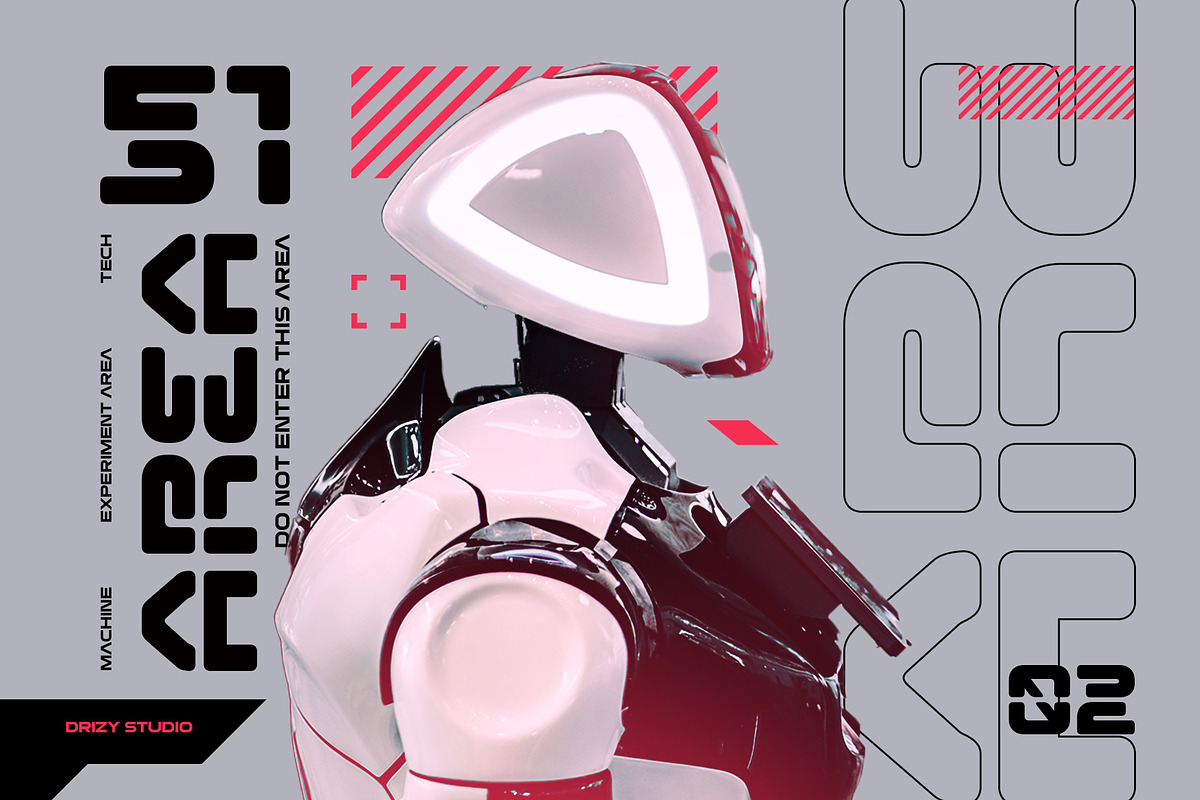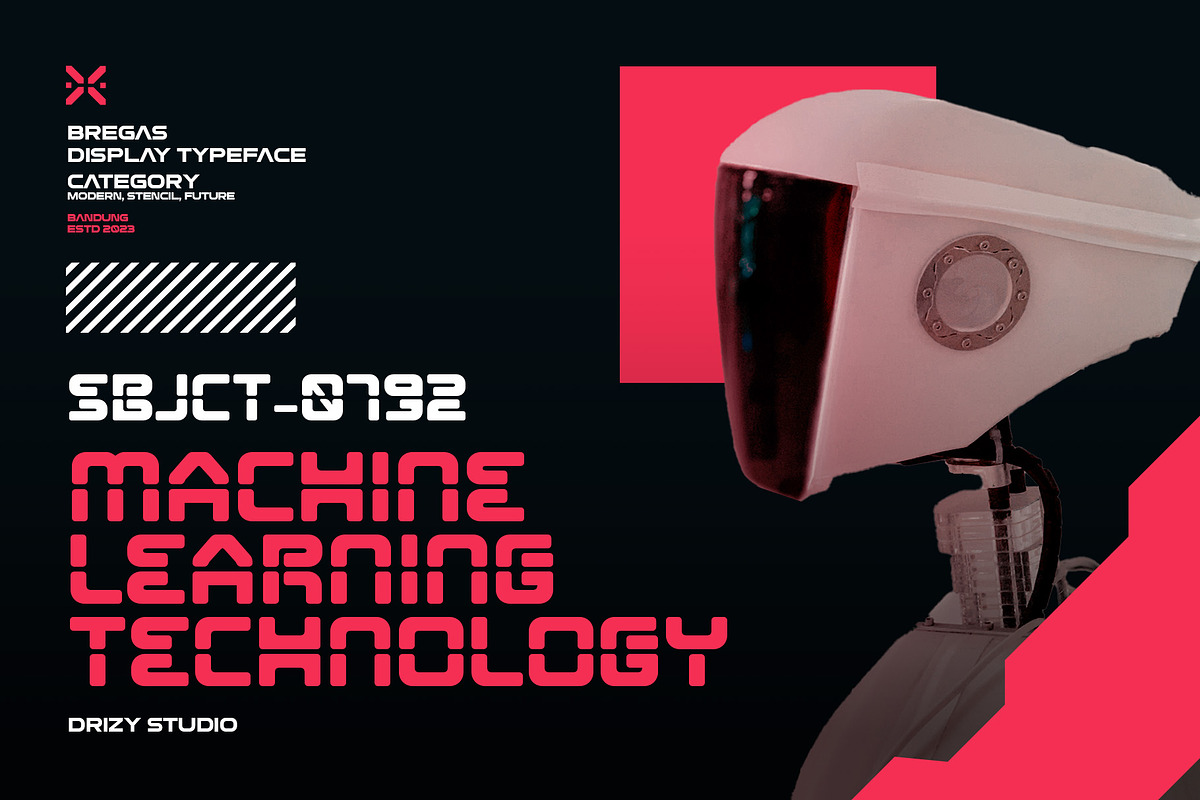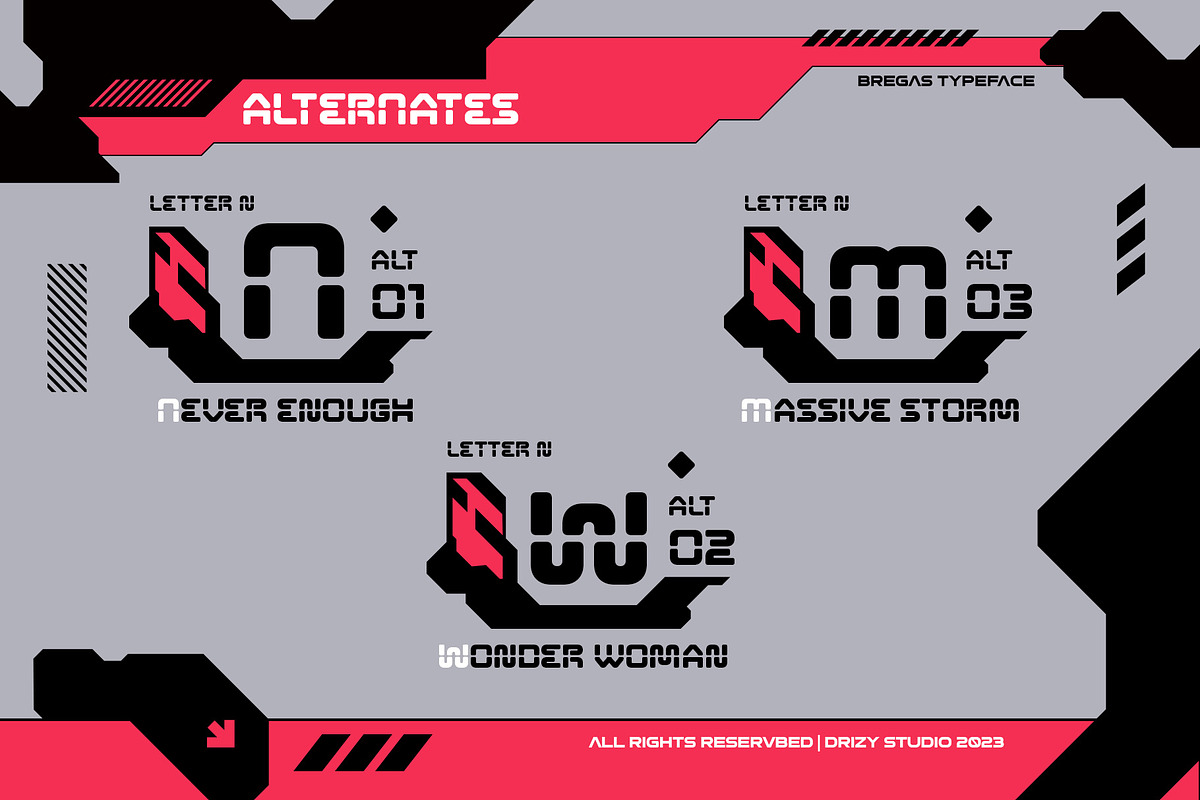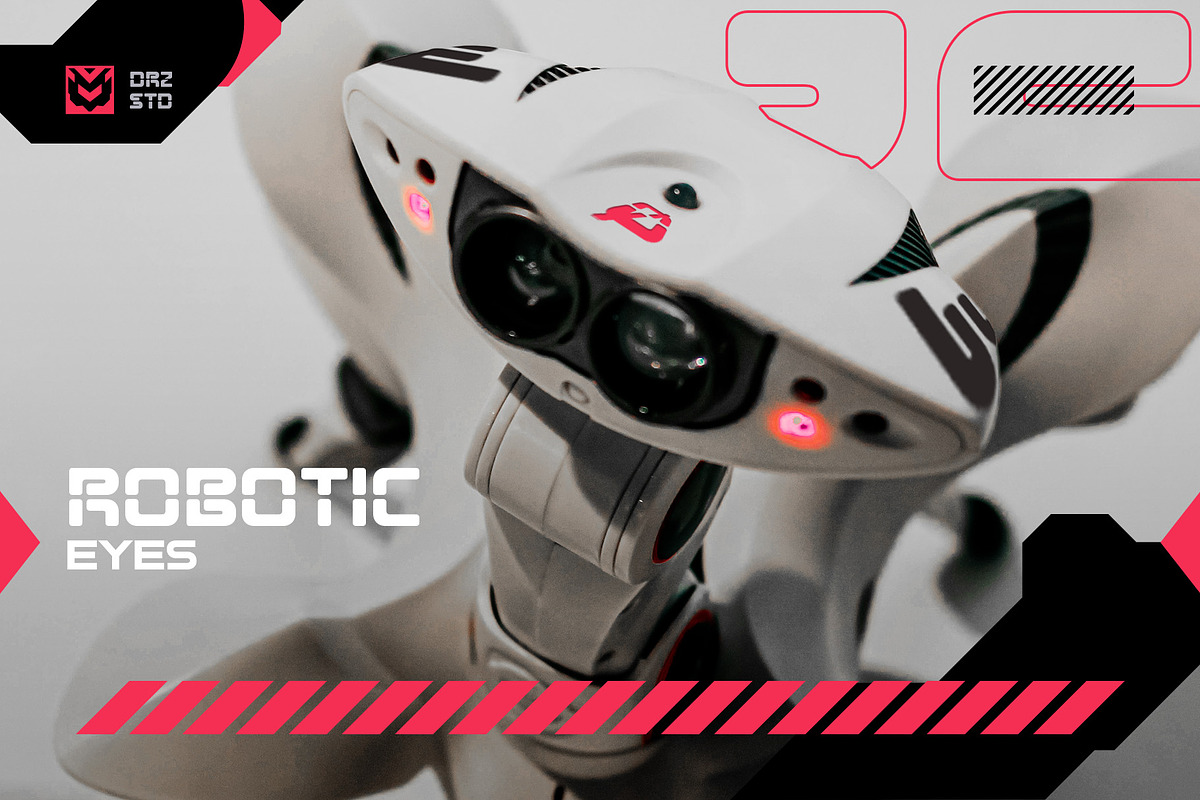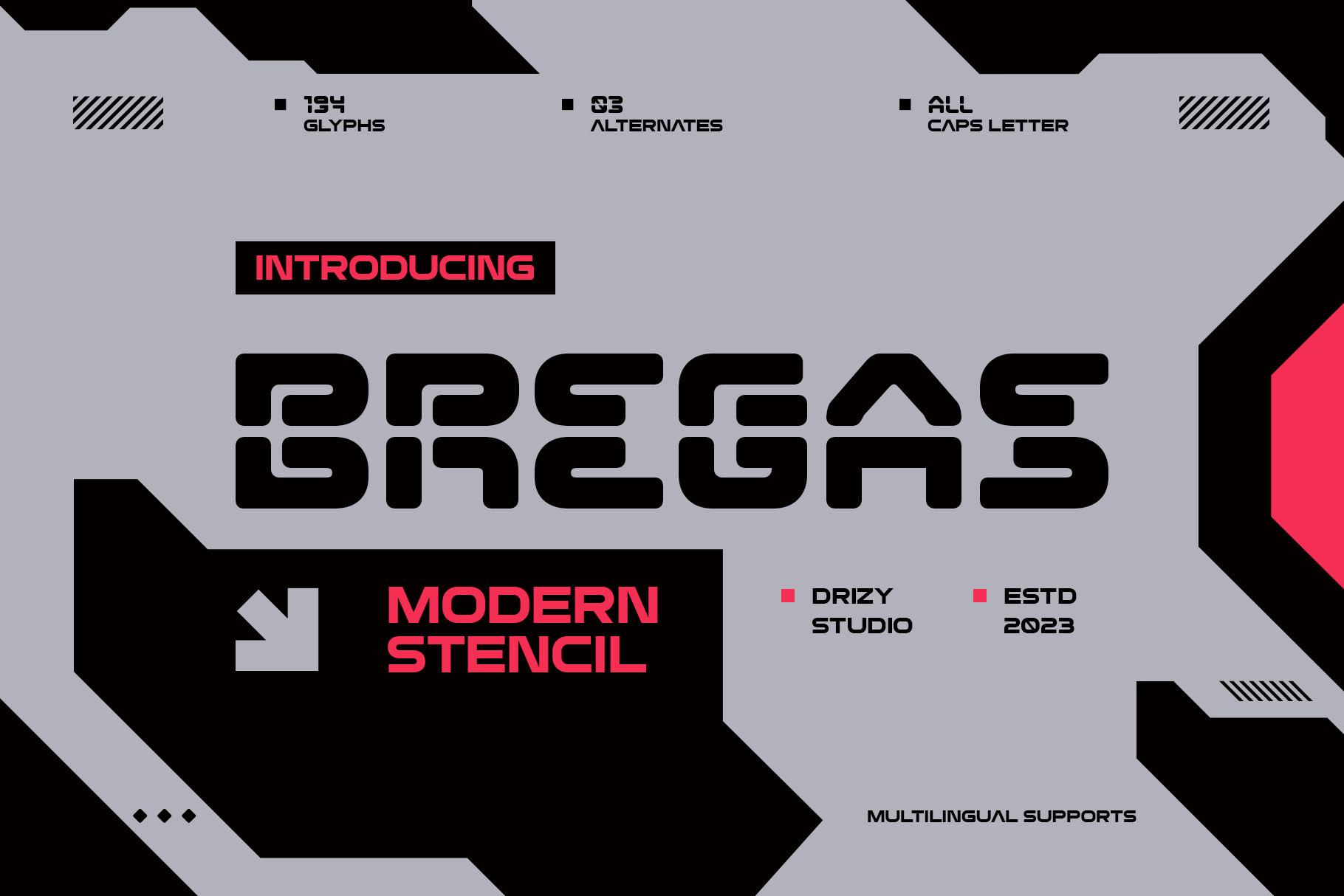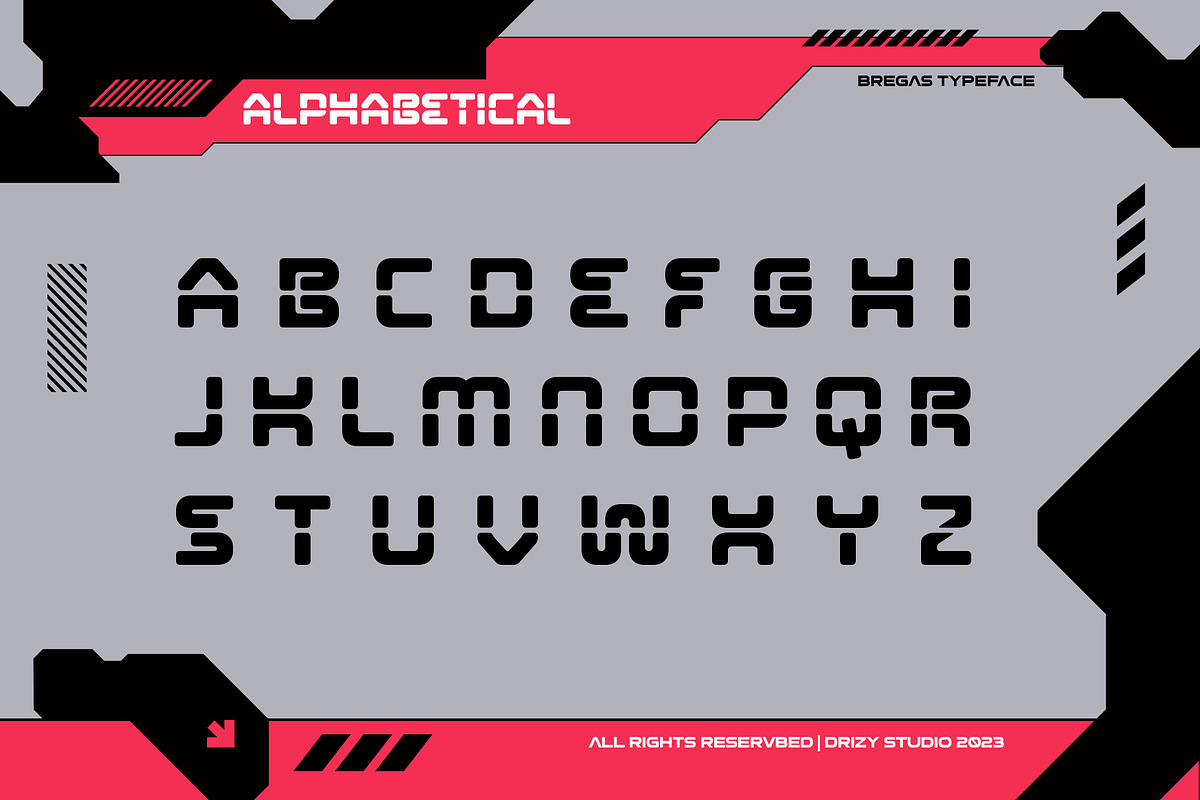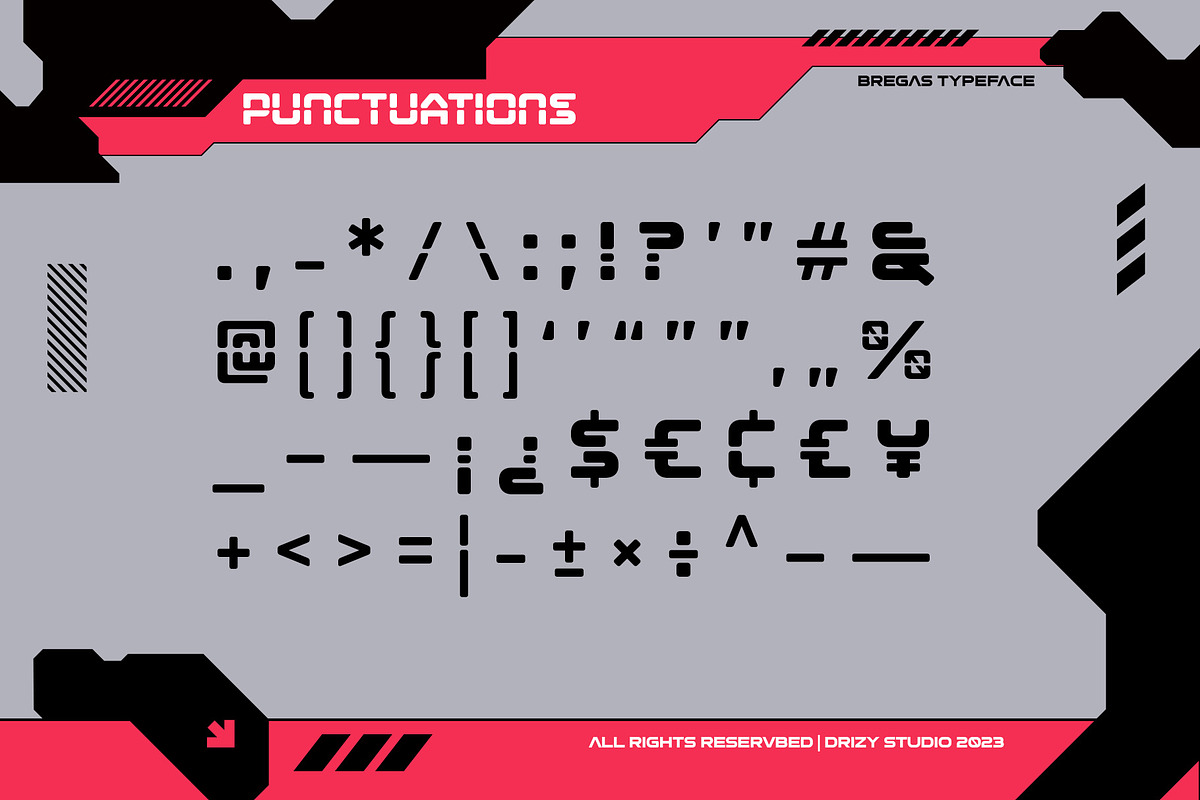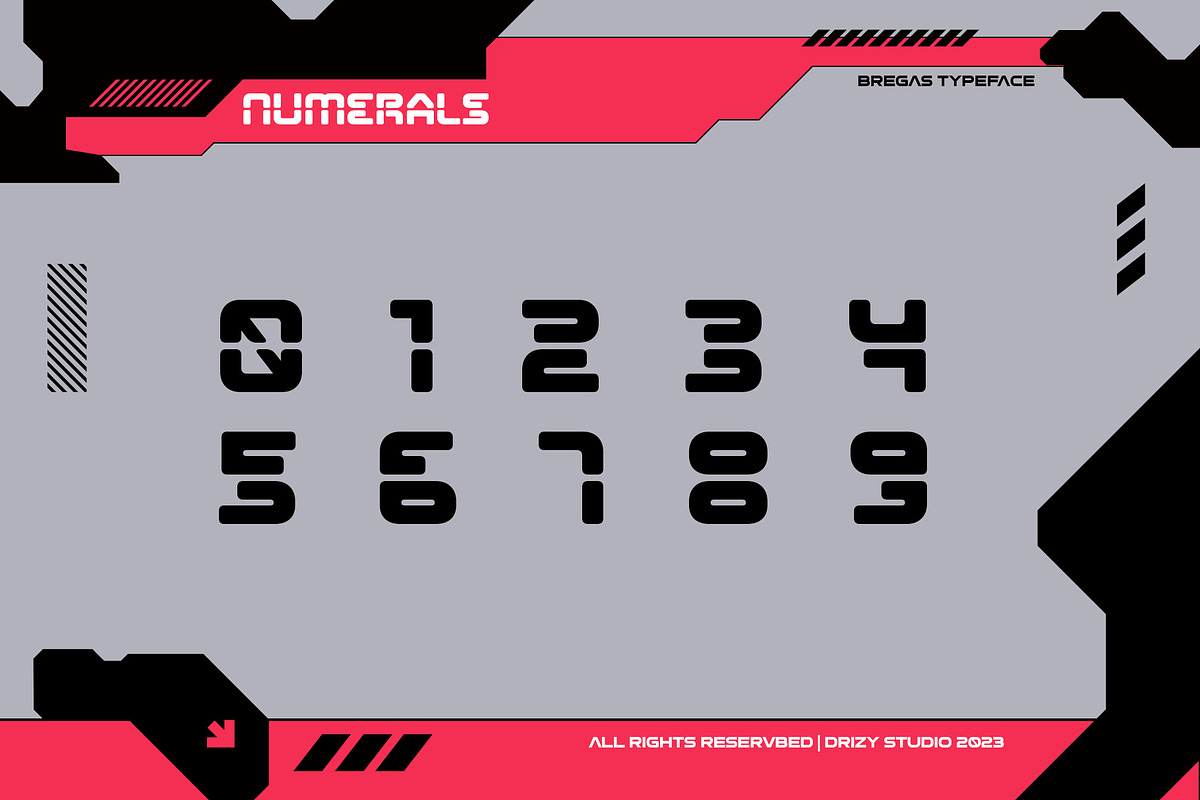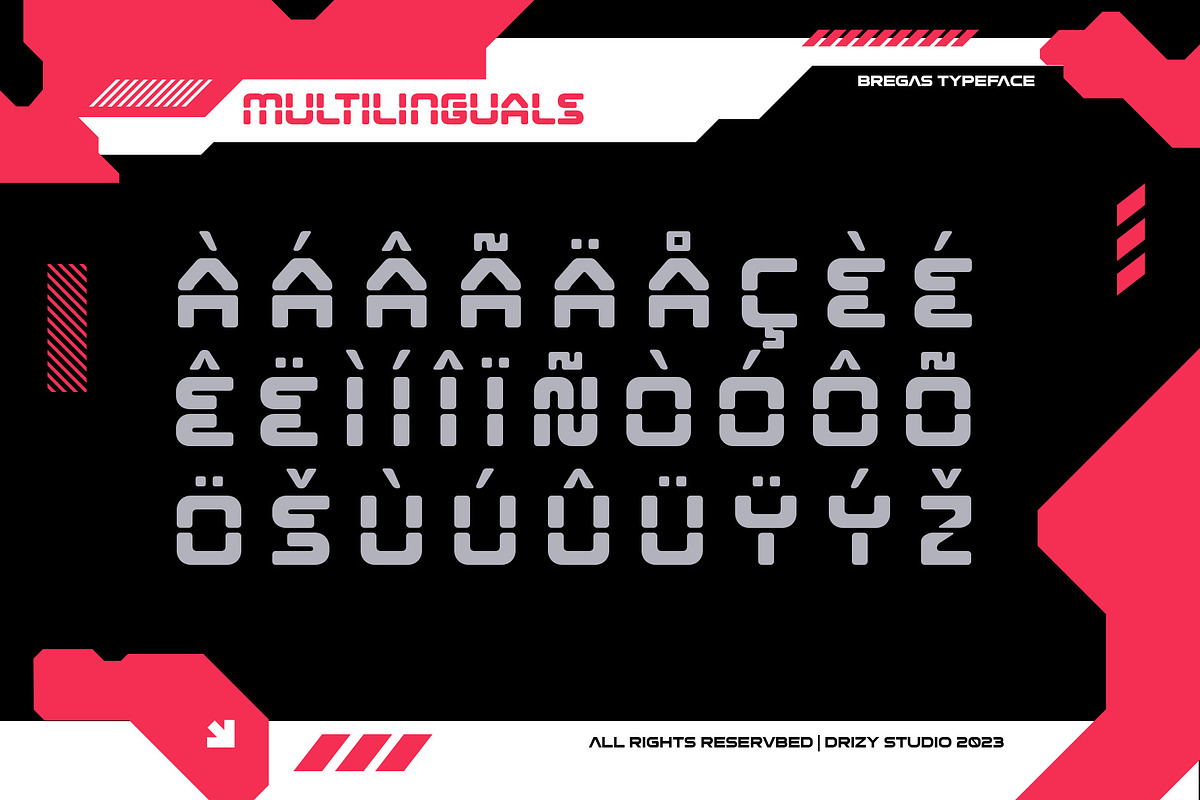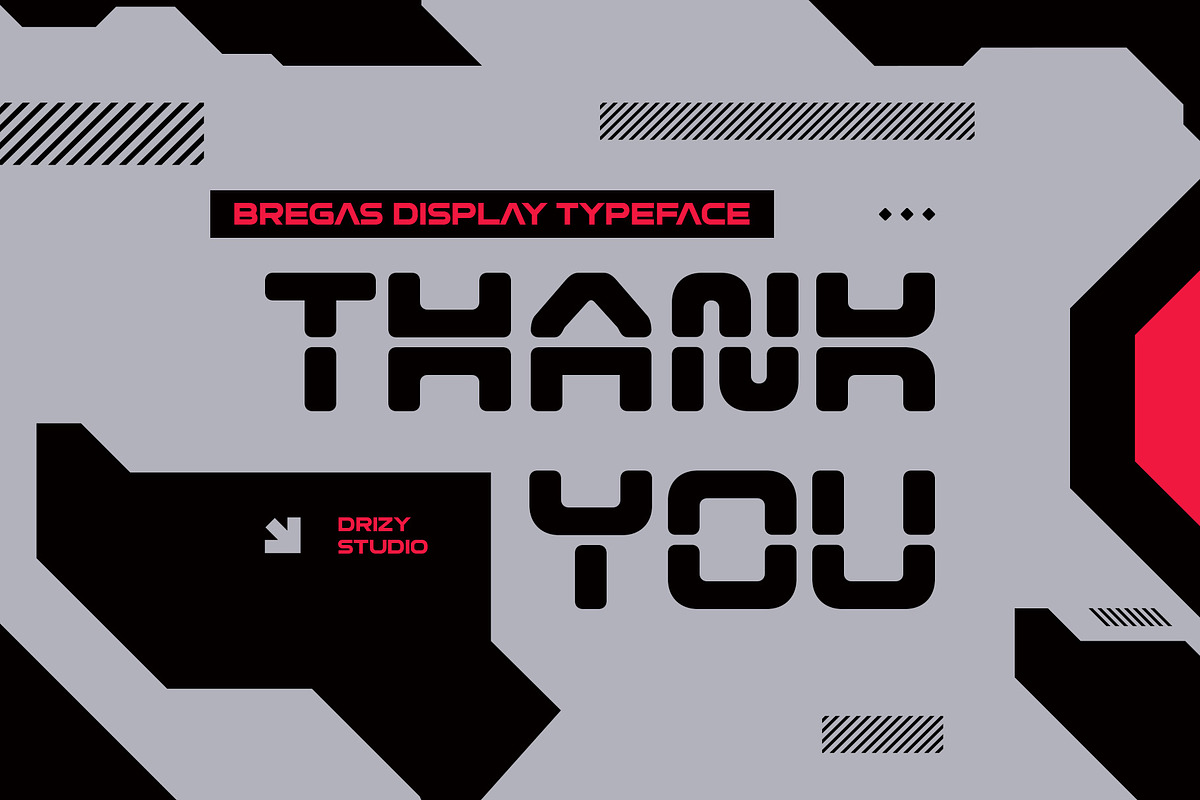
Bregas - Modern Stencil Font
Bregas - Modern Stencil Font is a cutting-edge typeface that effortlessly blends modern aesthetics with a touch of industrial design. This versatile font family is designed to make your projects stand out, giving them a futuristic, high-tech look that captures attention and leaves a lasting impression.
Bregas features: Character Set Punctuation & Numbers Multilingual Support Alternates